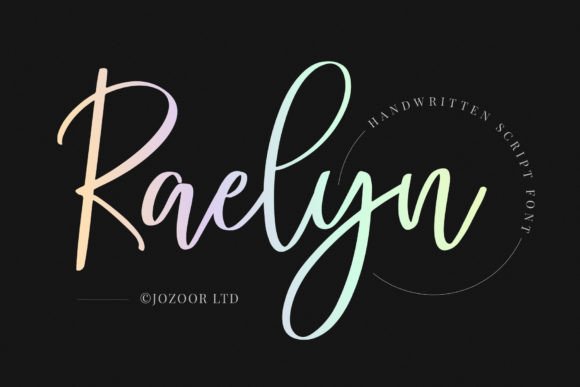
Introducing Raelyn Font, the perfect script font for all your farmhouse sign needs! Crafted by the talented Jozoor, this romantic and sweet calligraphy typeface will add a touch of luxury to any design project you have in mind.
The characters in Raelyn Font dance along the baseline, adding a whimsical and charming feel to your creations. And with its PUA encoding, accessing the font's amazing glyphs and ligatures is a breeze!
Capture the essence of farmhouse living with Raelyn Font. Whether you're creating signage for a rustic wedding, designing a cozy home decor print, or branding a farm-to-table business, this font is sure to make your message stand out.
With Raelyn Font, your designs will exude a warm and inviting vibe that will resonate with your audience. The delicate and intricate details of each letter will add a touch of sophistication to your work, making it perfect for any project that requires a personalized touch.